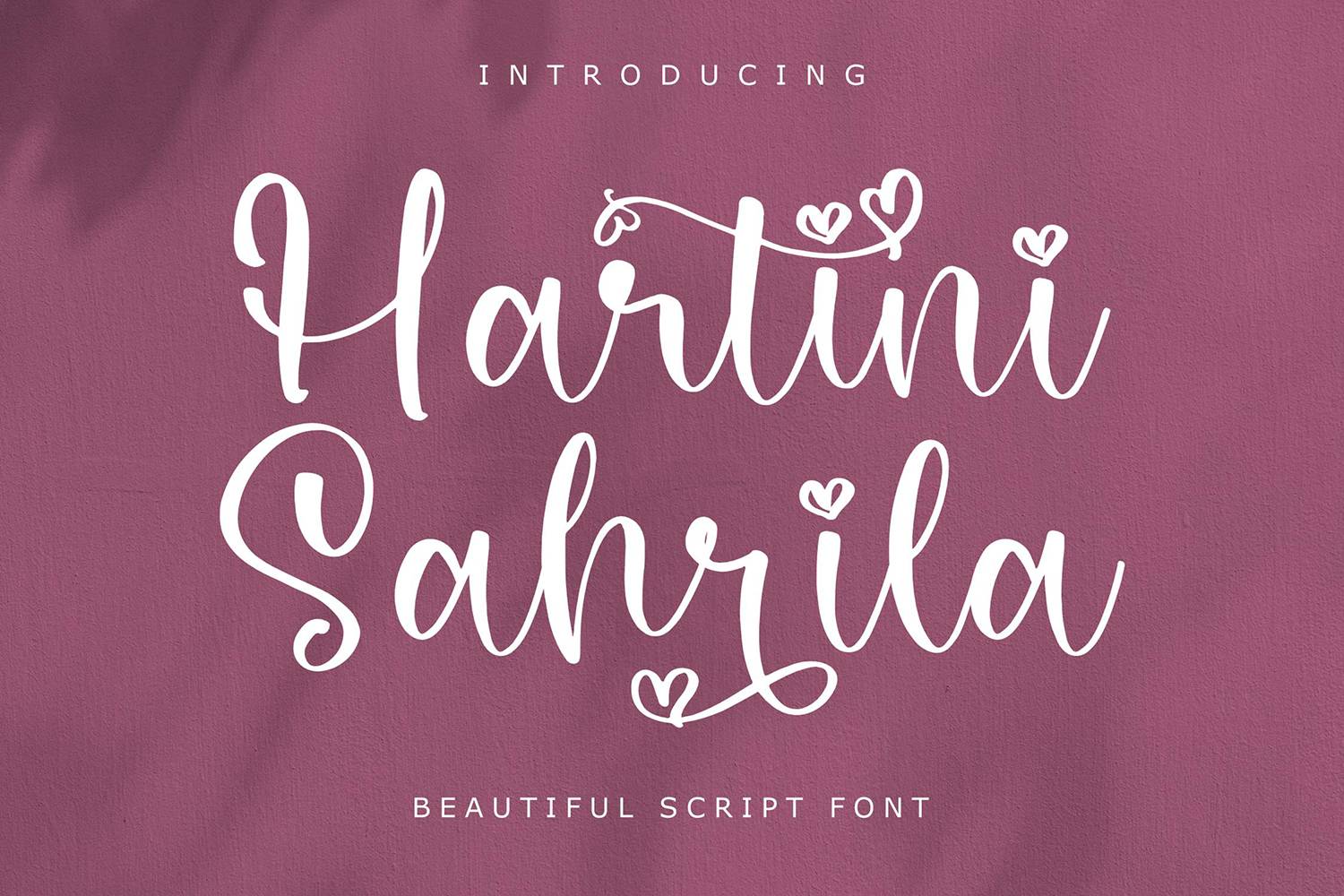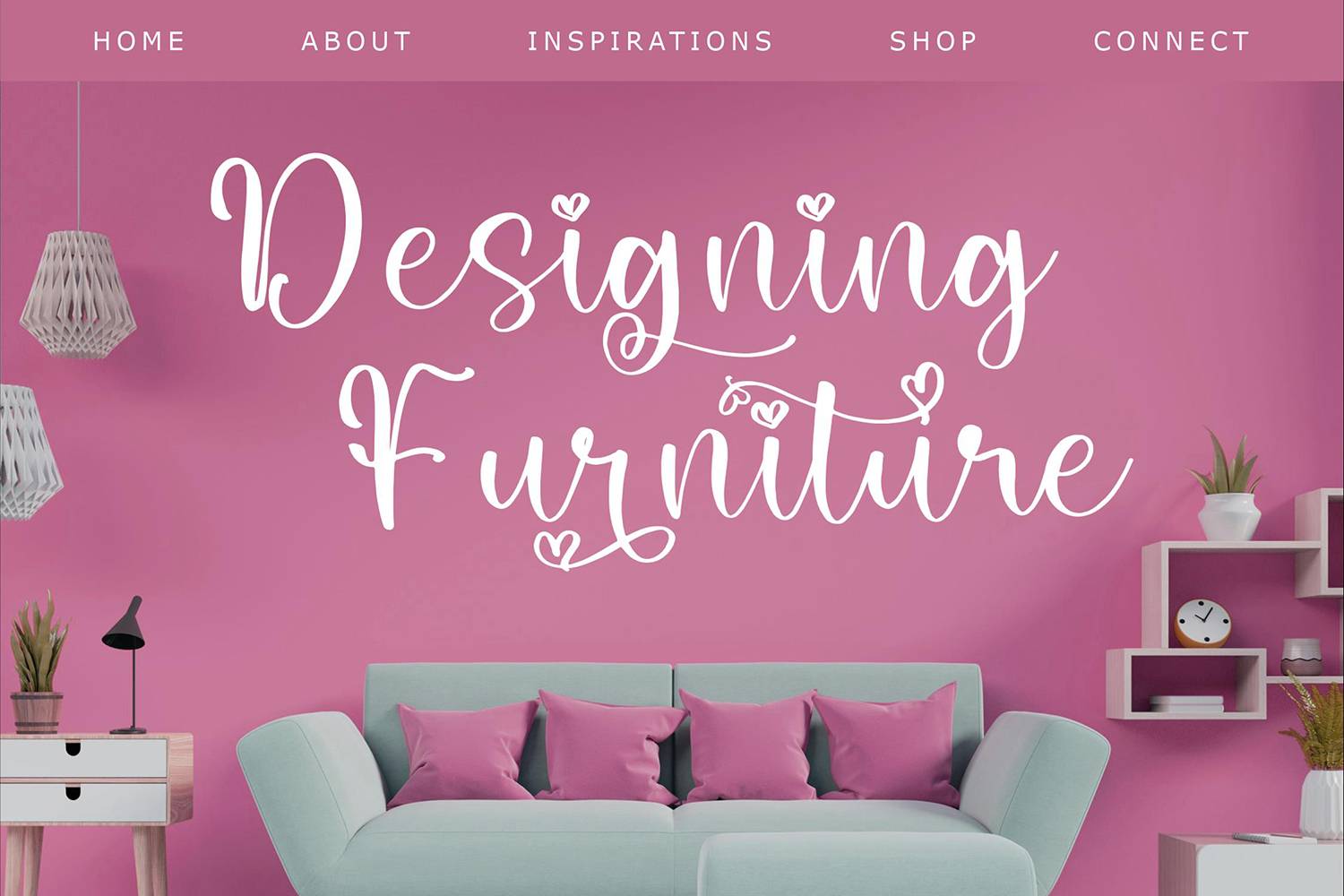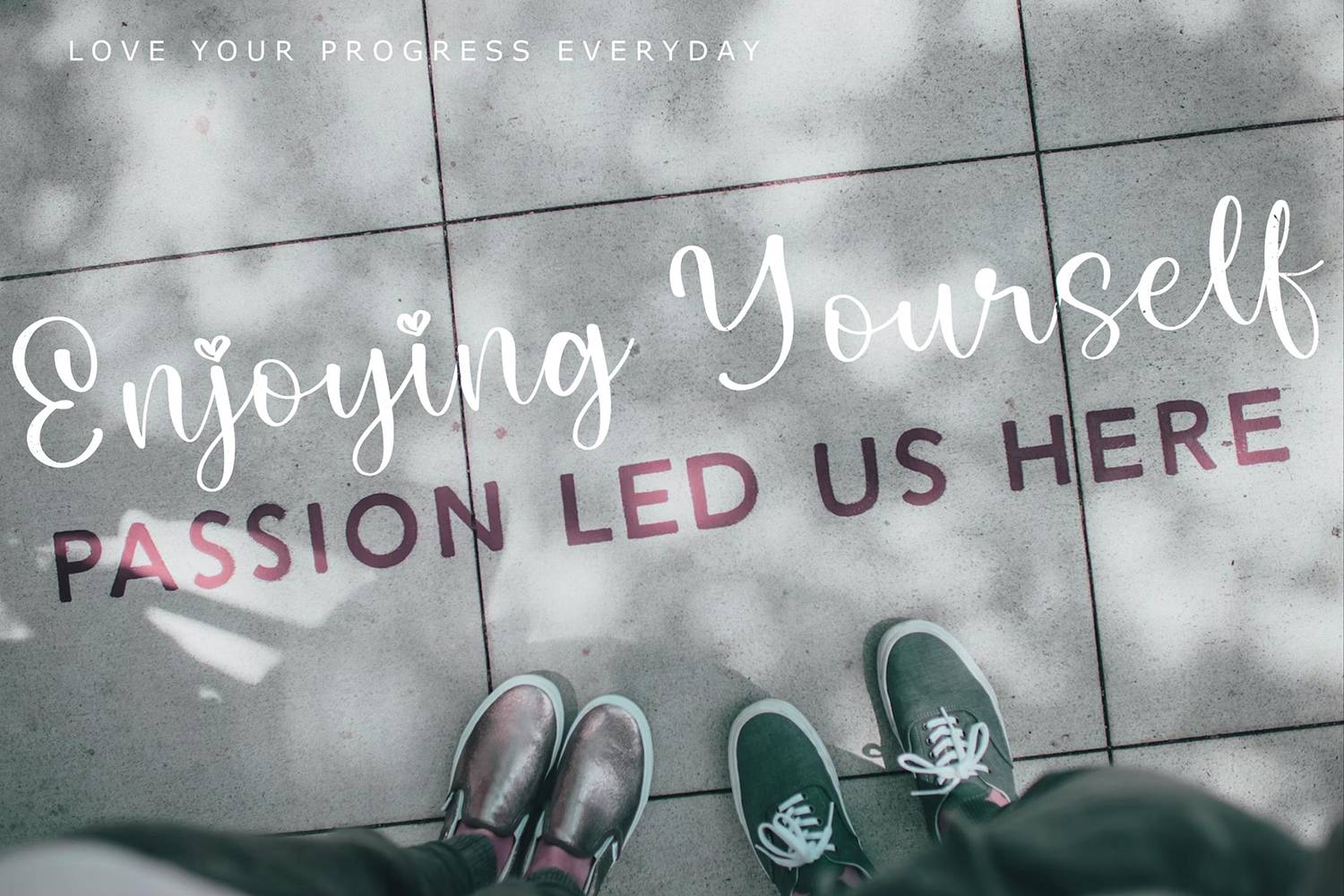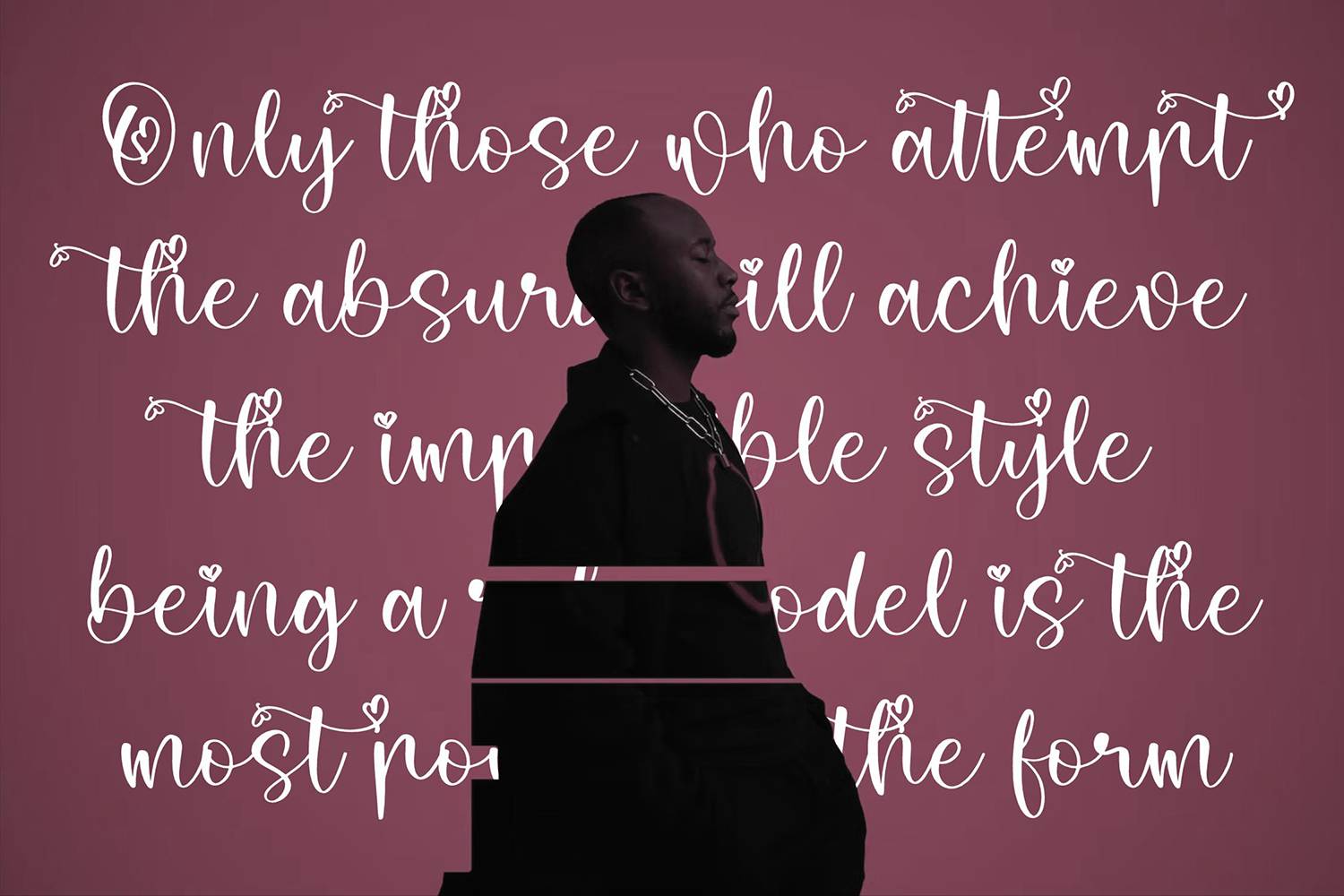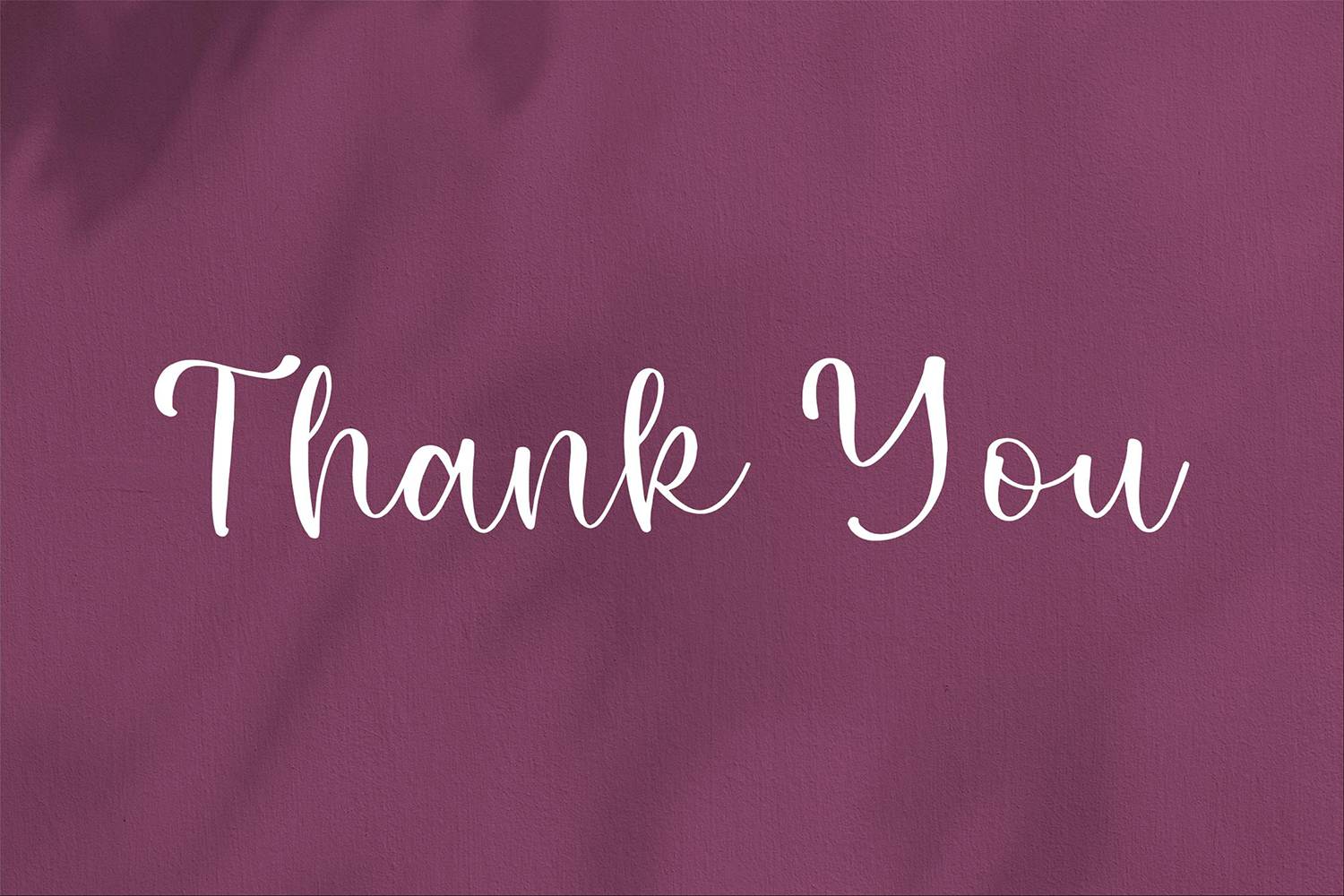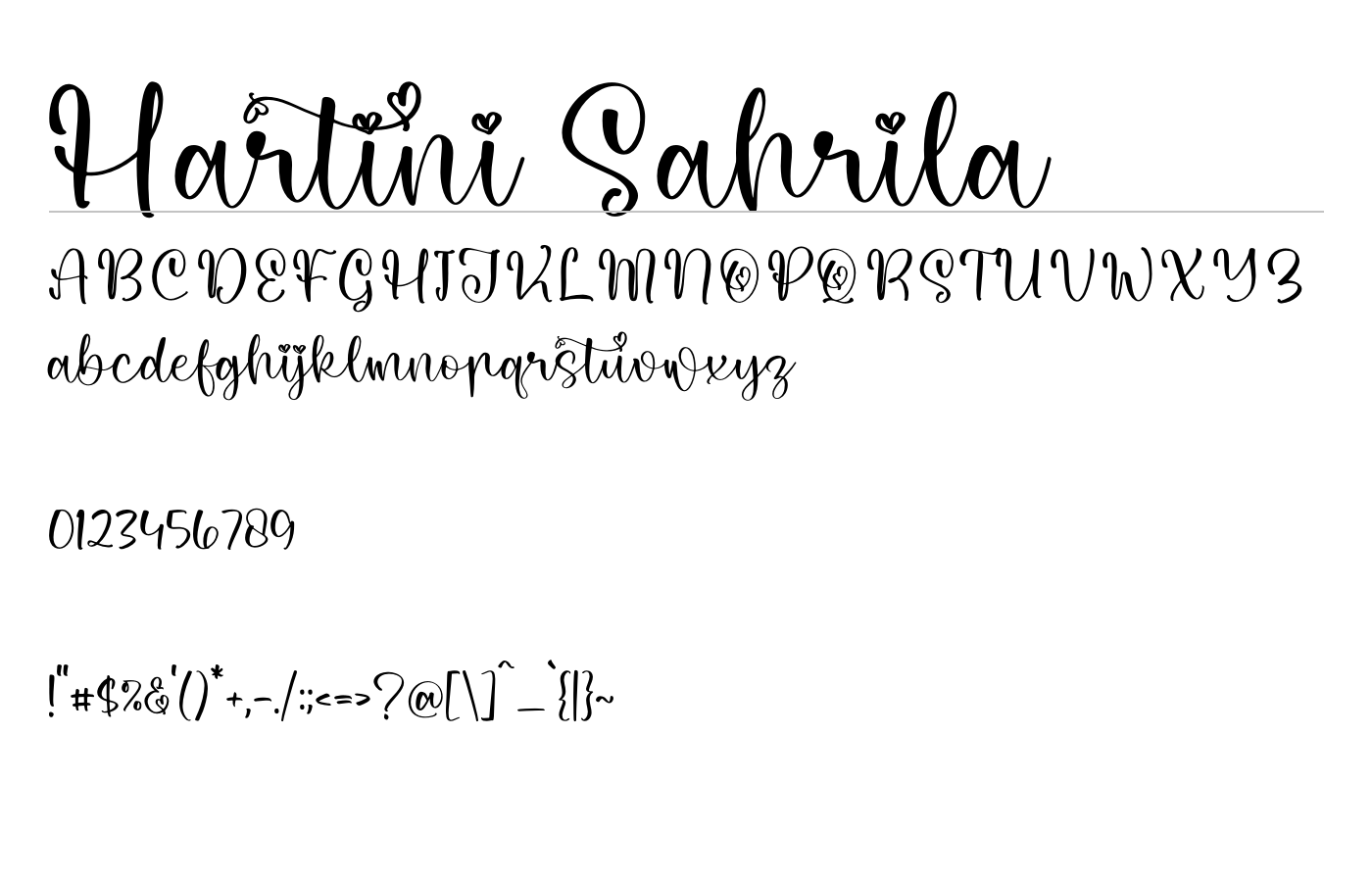
Hartini Sahrila is a playful and charming script font with a delicate, hand-drawn feel, featuring whimsical heart embellishments that add a romantic and friendly touch. Its tall, narrow letterforms and consistent stroke weight make it perfect for invitations, greeting cards, and personal branding where a warm, approachable, and stylish look is desired. This font works best in creative projects that seek to convey elegance with a hint of fun and personality.
Hartini Sahrila Font
About Hartini Sahrila Font